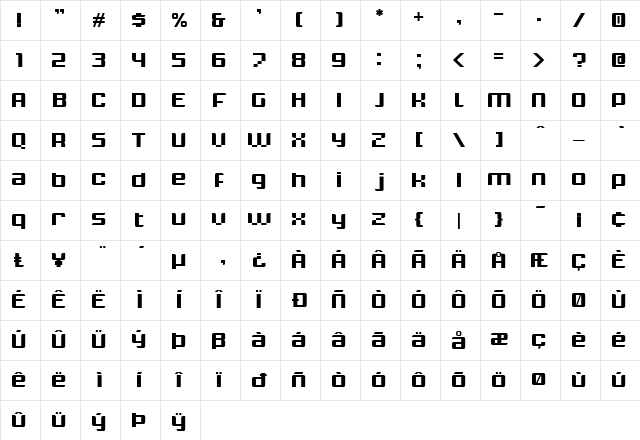
Krunch is a composed and adaptable typeface that performs quietly and consistently across a wide range of design contexts. Its bold stroke weight gives it real presence on the page.